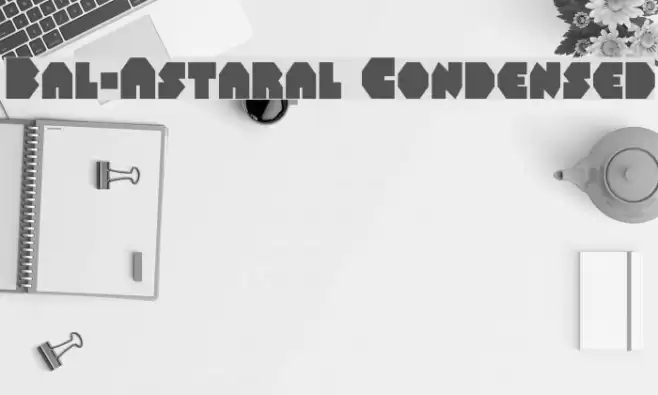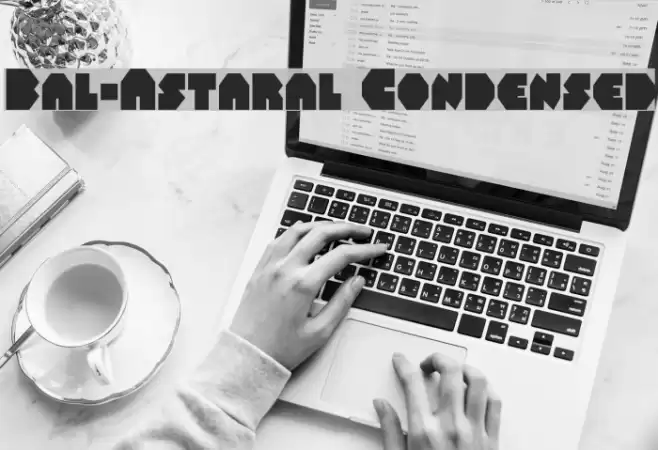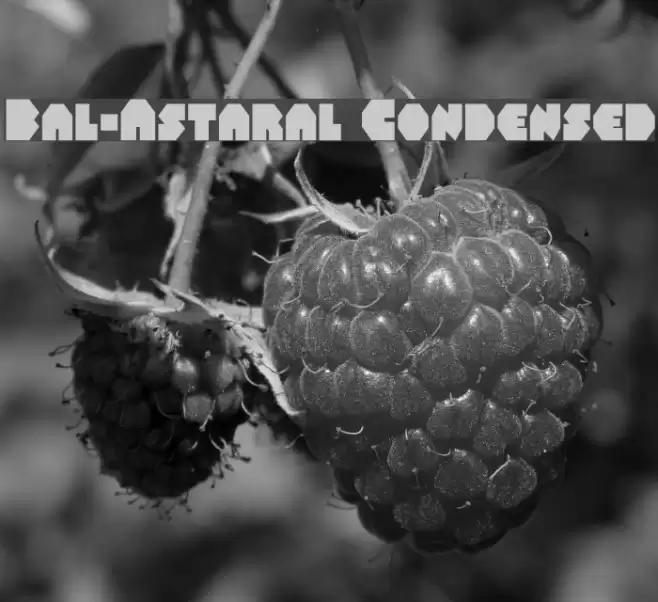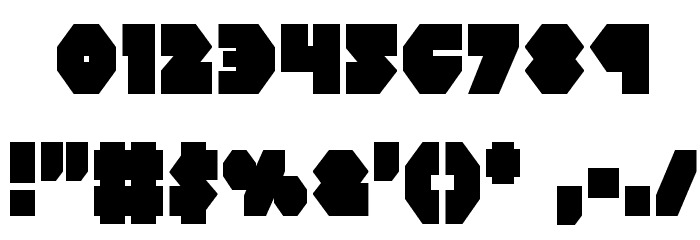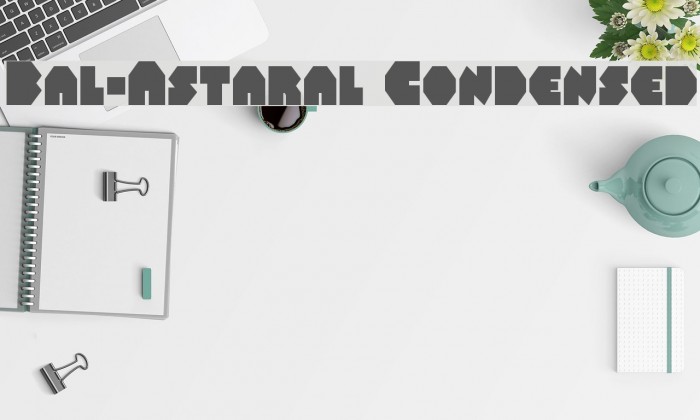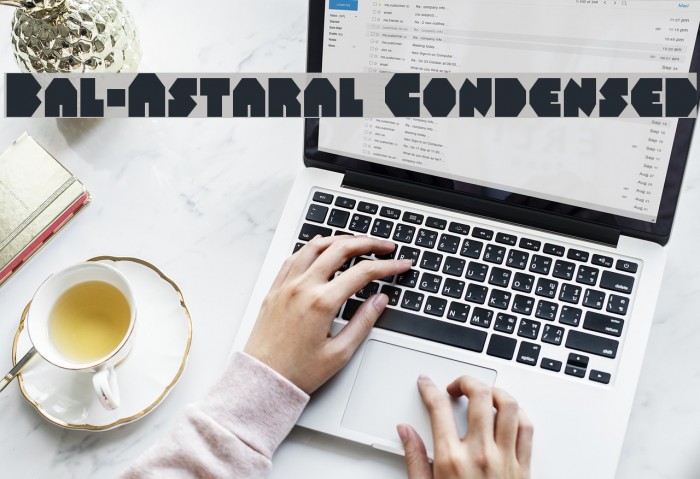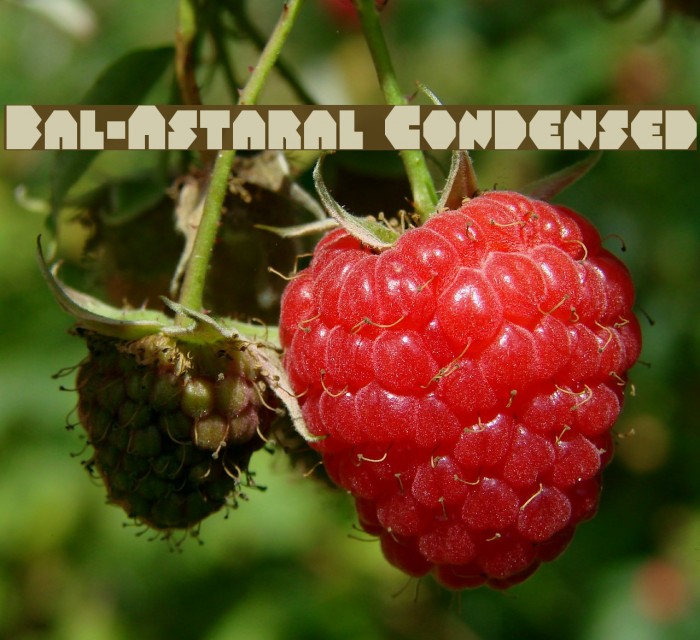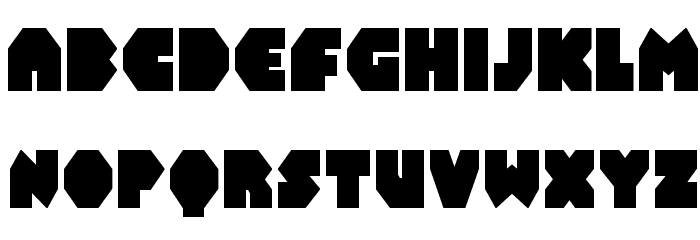
Bal-Astaral Condensed Font
Bal-Astaral Condensed Description
This font features a bold and geometric design, characterized by its sharp angles and block-like structure. Each letter is crafted with precision, creating a uniform and cohesive appearance. The uppercase and lowercase letters maintain a consistent style, with the lowercase mirroring the uppercase in form. Numbers and special characters are designed to match the boldness and angularity of the alphabet, ensuring a seamless integration across all text elements. The font's condensed nature allows for efficient use of space, making it ideal for impactful headlines and attention-grabbing designs.
A bold, geometric, and condensed font with sharp angles and block-like structure from Futuristic fonts.
- Proposed Projects: Ideal for posters, logos, branding, and any design requiring a strong visual impact.
- Character Spacing: Tight